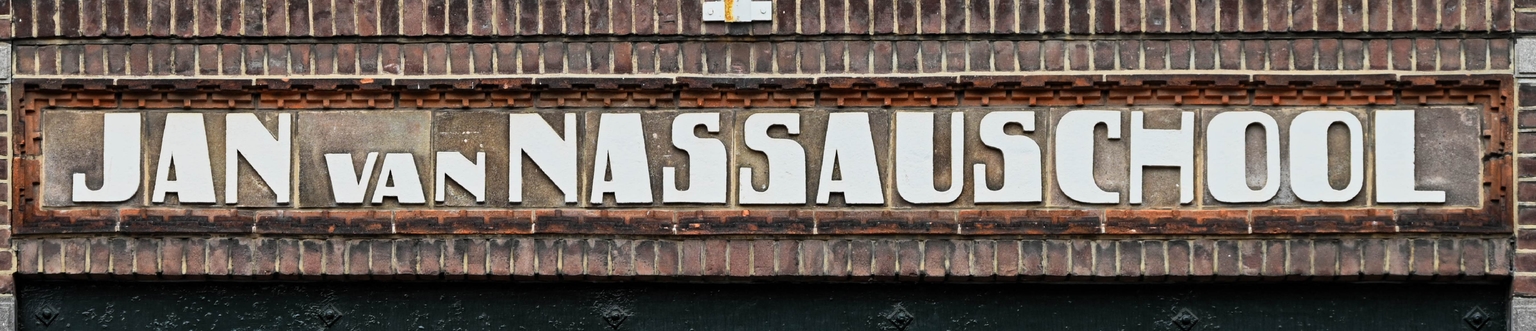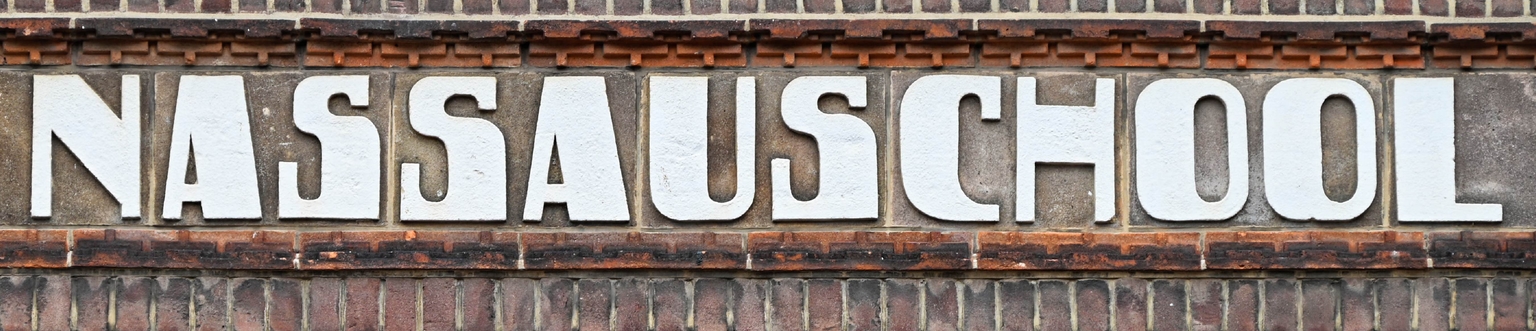
Nassau
Nassau is a display typeface designed by Ramiro Espinoza and inspired by the lettering on the façade of the Jan van Nassauschool (now Flex College), located at Gouwestraat 13 in The Hague, the Netherlands. The school building, designed by municipal architects P. Kuyk and J. A. Nijhoff, was inaugurated in September 1923. The original inscription is modular and based on geometric principles, yet it also displays unusual characteristics, including soft curves and a subtle organic quality that distinguish it from the more rigid architectural lettering of its period. This combination gives the alphabet a distinctive balance between structural precision and visual warmth.
Espinoza studied the proportions, construction, and unique details of the original lettering and translated these qualities into a contemporary digital typeface. Rather than reproducing the inscription literally, he refined the geometry, improved consistency, and expanded the character set for present-day typographic use while preserving the modular logic and expressive character of the source.
With its geometric foundation, restrained organic forms, and architectural presence, Nassau is well suited for logos, signage, editorial design, posters, branding, websites, museum exhibitions, and cultural projects that benefit from a refined, historically informed typographic voice. Rooted in Dutch architectural lettering of the interwar period, the typeface brings the formal discipline and distinctive character of its source into contemporary graphic design.